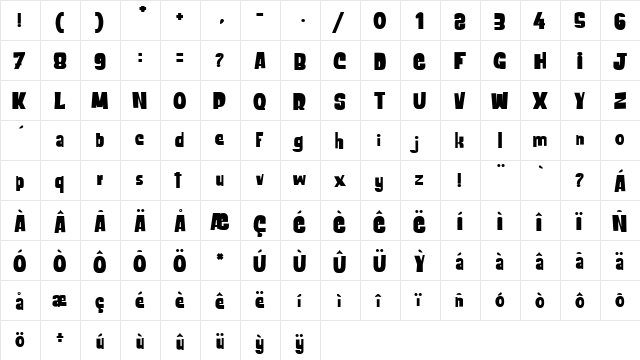
le Cachalot du Grand Nord Regular
Design Context for le Cachalot du Grand Nord Typeface
le Cachalot du Grand Nord offers clean, dependable letterforms without strong stylistic allegiance, making it a practical choice for designers who need flexibility.
Pro Tip: Use le Cachalot du Grand Nord in both headline and body roles to test its range before committing to a single application.